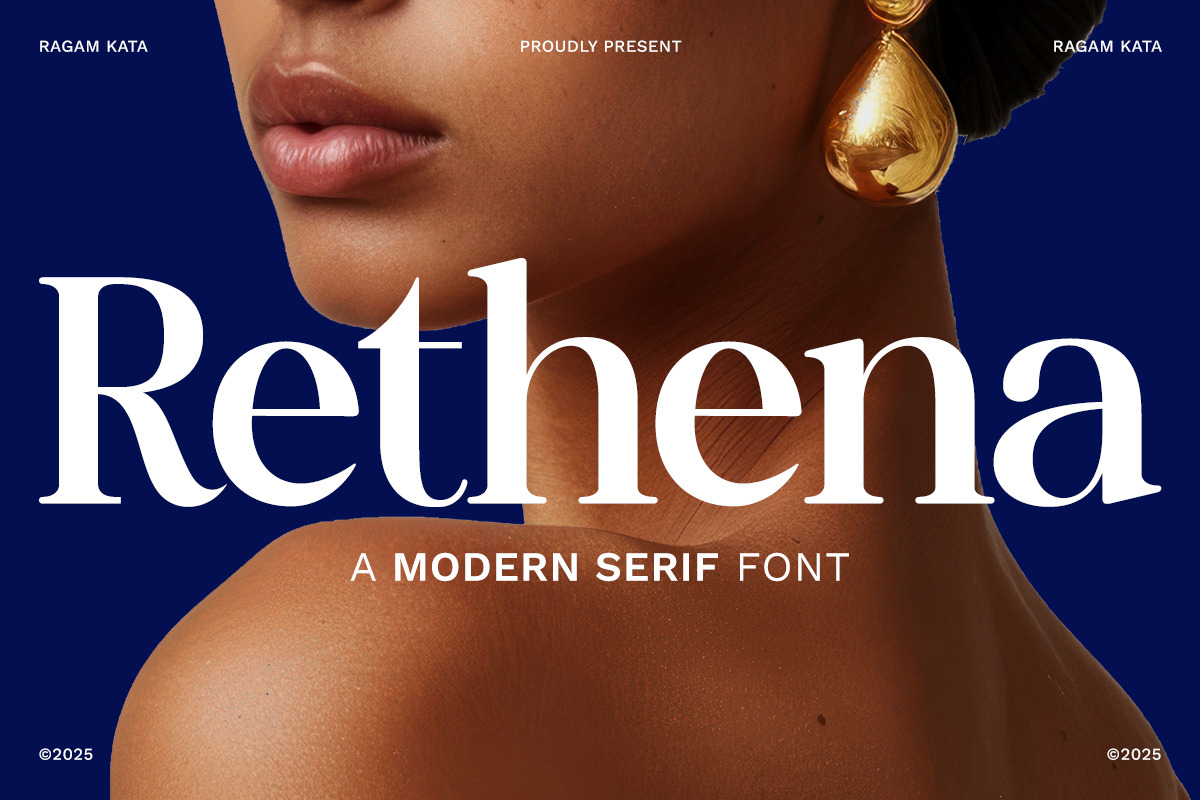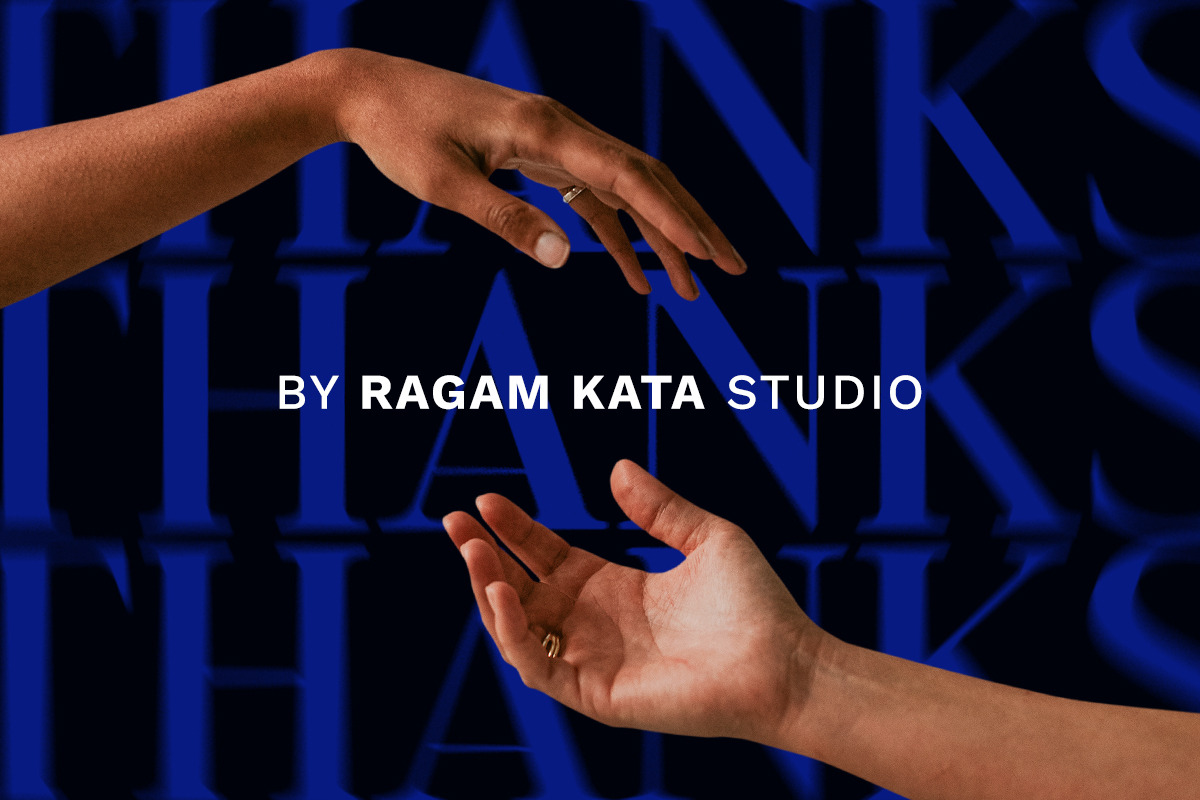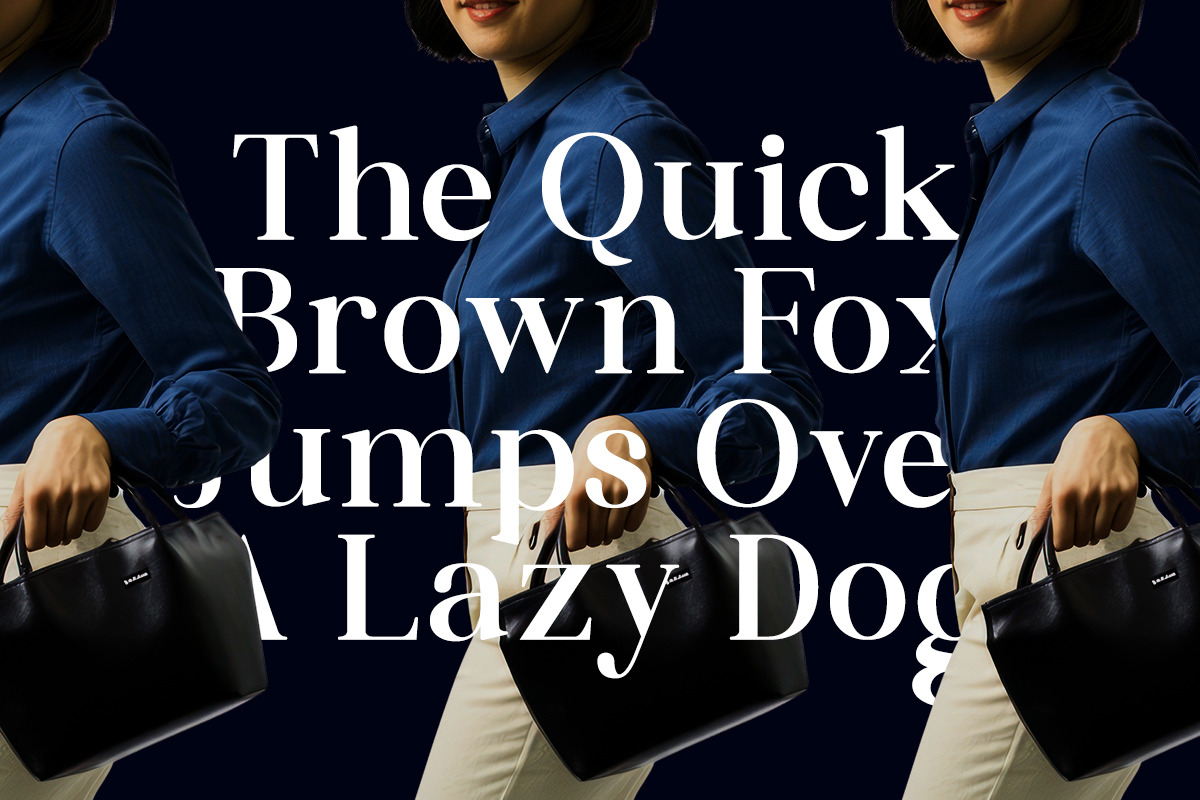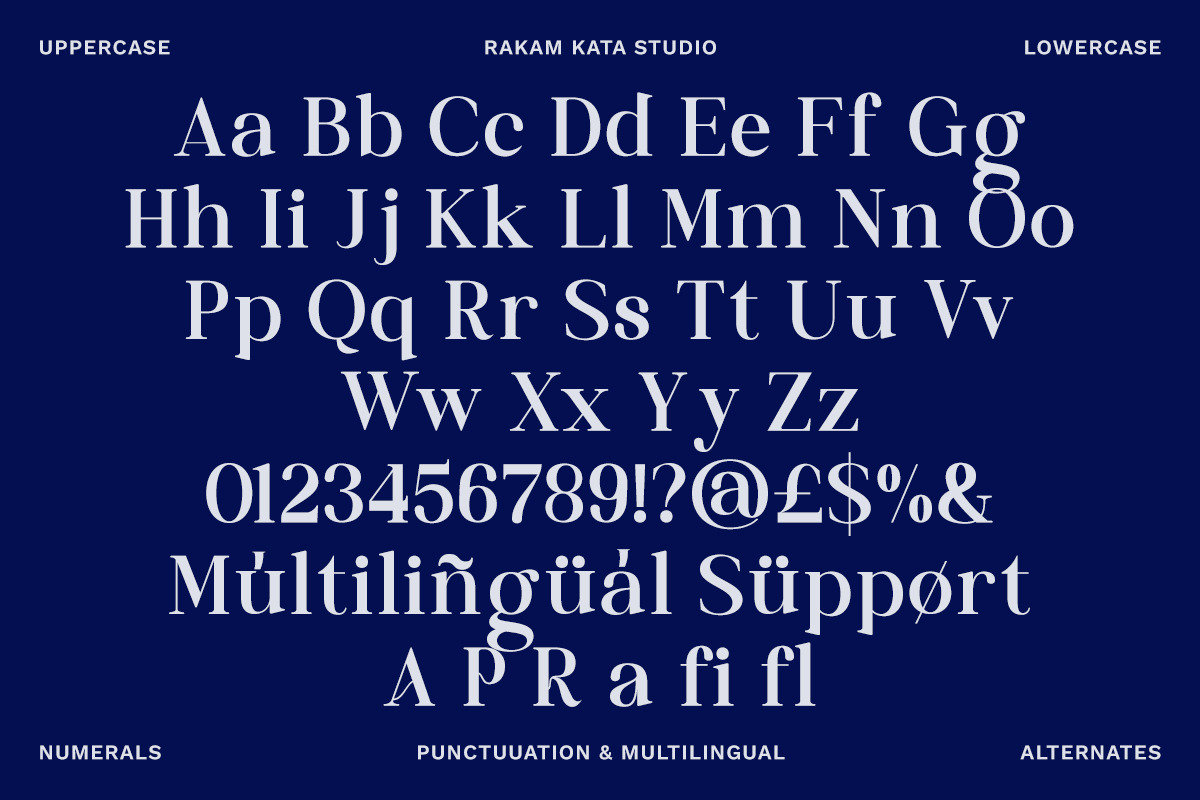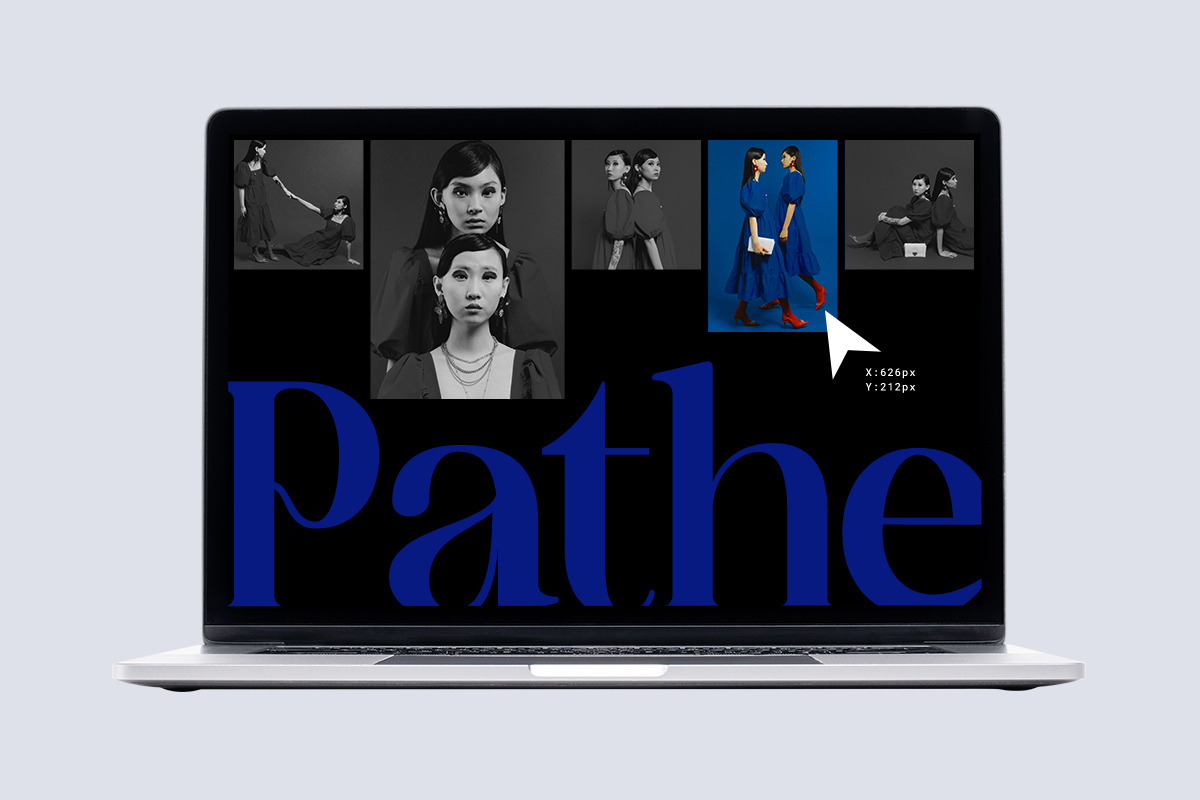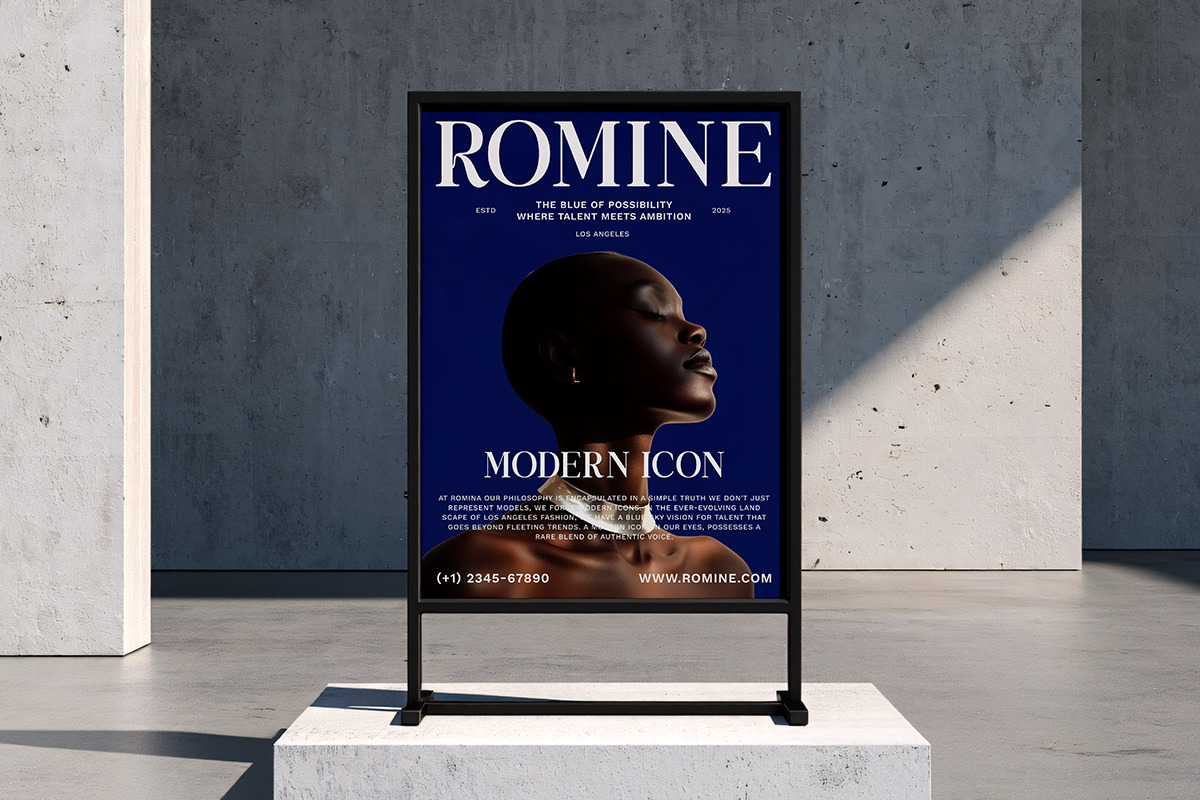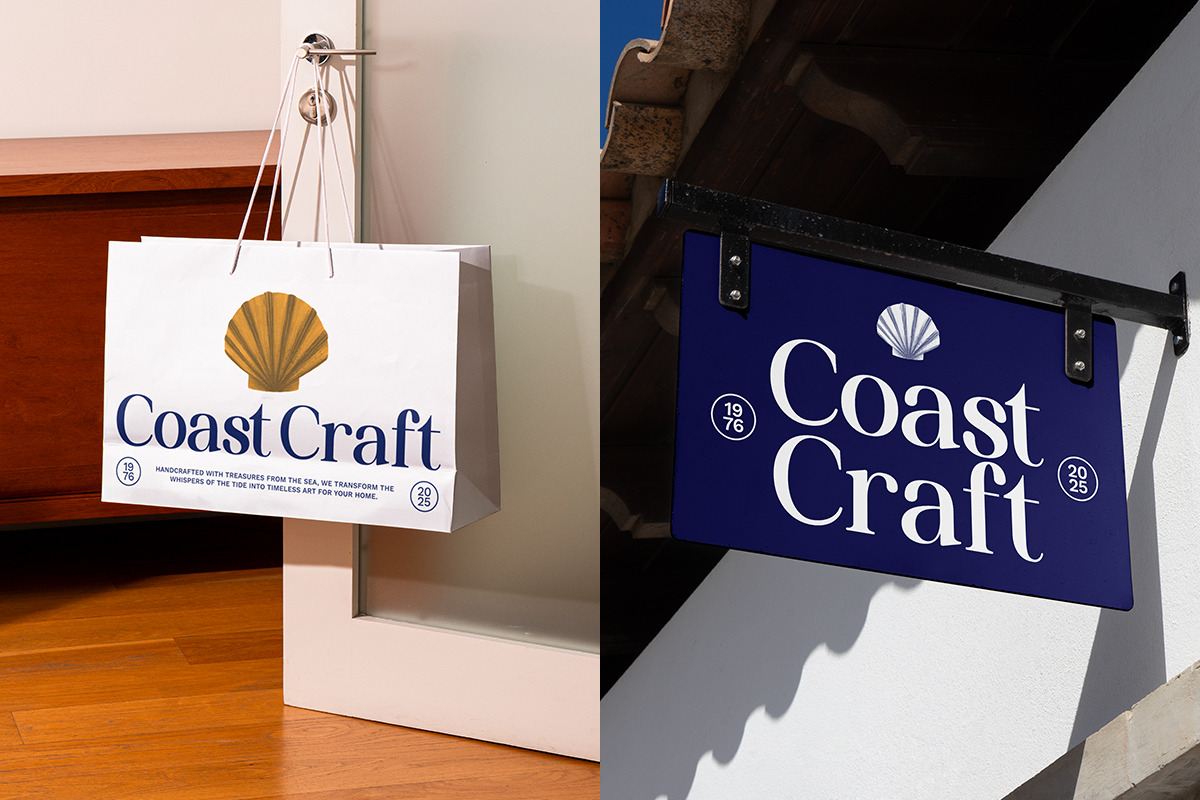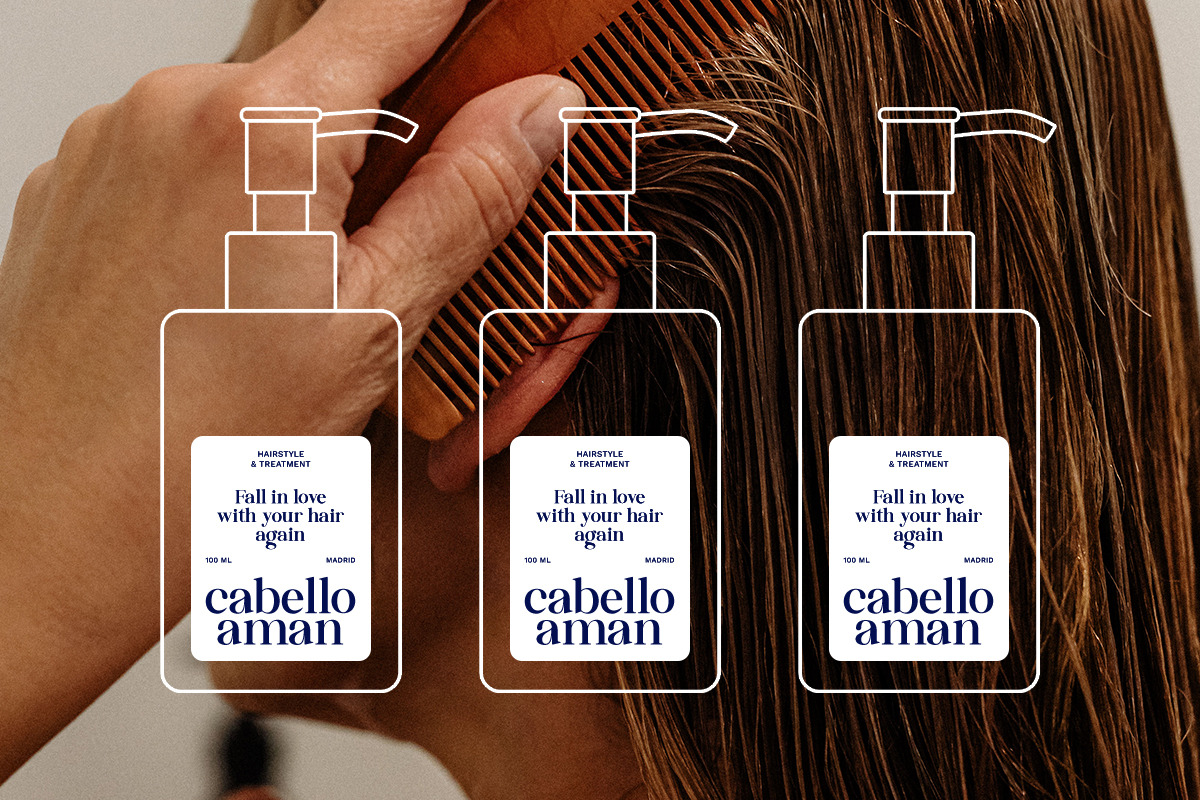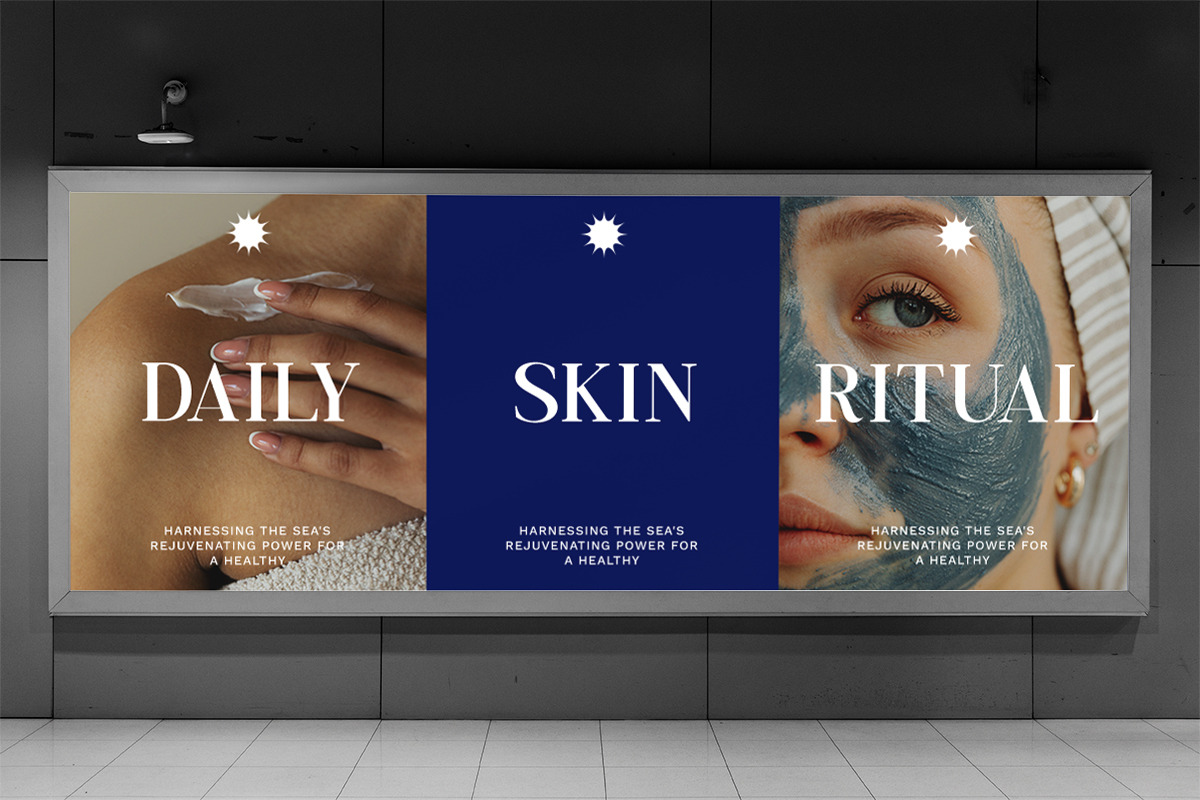
Rethena - Modern Serif Font
Rethena is a modern serif font that blends timeless elegance with bold sophistication. Perfect for branding, editorial design, packaging, and luxury logos, Rethena adds a refined touch to any project. With its clean curves and stylish contrast, this typeface is ideal for designers seeking a classy yet contemporary look.